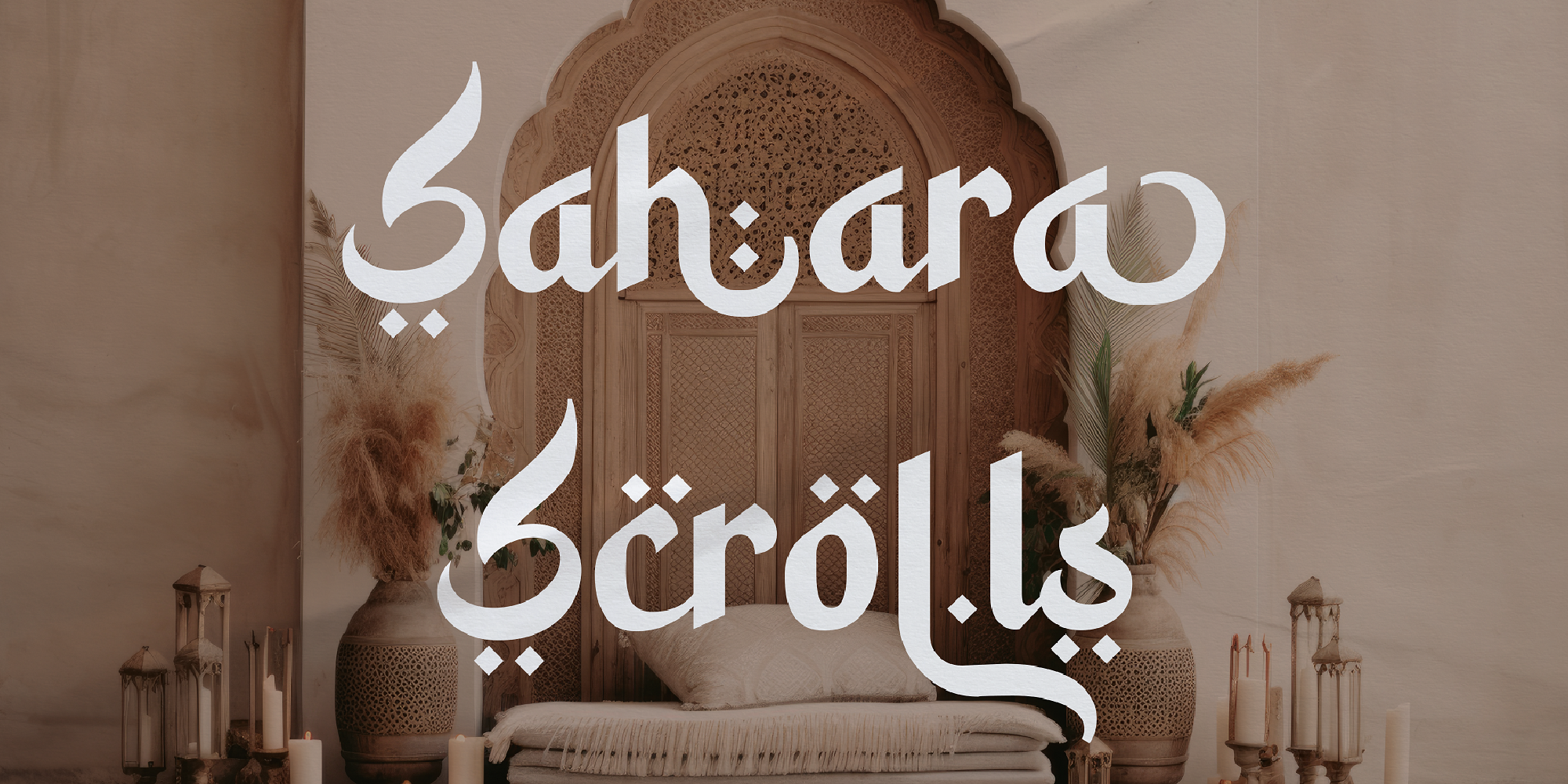
The Sahara Scrolls Font is perfect for various applications including ancient manuscript designs, archaeological documentation, desert-themed branding, historical adventure games, mystical book covers, Egyptian-inspired artwork, ancient civilization presentations, treasure map designs, museum exhibition graphics, and exotic travel branding. This captivating typeface brings authentic ancient world atmosphere to any creative project.
What makes the Sahara Scrolls Font exciting is its authentic ancient manuscript aesthetic combined with weathered scroll-like textures that transport viewers to distant civilizations. The font features distinctive letterforms inspired by ancient desert scripts, complete with organic curves and time-worn details that evoke the mystery and wisdom of lost civilizations. Its unique character variations create the illusion of text written on aged papyrus by ancient scribes.
The Sahara Scrolls Font family includes multiple variations such as Regular, Bold, Light, Weathered, Clean, and potentially Decorative styles. Each variation maintains the core ancient characteristics while offering designers different levels of aging effects and ornamental details for diverse archaeological applications and mystical typography compositions.
Typography enthusiasts and creative professionals seeking authentic ancient fonts will find the Sahara Scrolls Font Free Download to be an essential addition to their historical design toolkit. The font's versatility extends from digital storytelling to print applications, maintaining its mystical appeal across various mediums while preserving its ancient world authenticity.
The Sahara Scrolls Font demonstrates exceptional craftsmanship in its letterform construction, with carefully balanced proportions that ensure readability while preserving the distinctive ancient personality that makes this font so compelling. Its organic texture variations create natural rhythm and authentic character that enhances any design with historical depth.
Whether you're working on educational history projects, adventure entertainment campaigns, or archaeological artistic endeavors, the Sahara Scrolls Font provides the authentic ancient aesthetic and professional quality required for immersive, memorable design solutions. The font's distinctive mystery and technical excellence make it a preferred choice among designers working with historical, archaeological, and adventure themes.